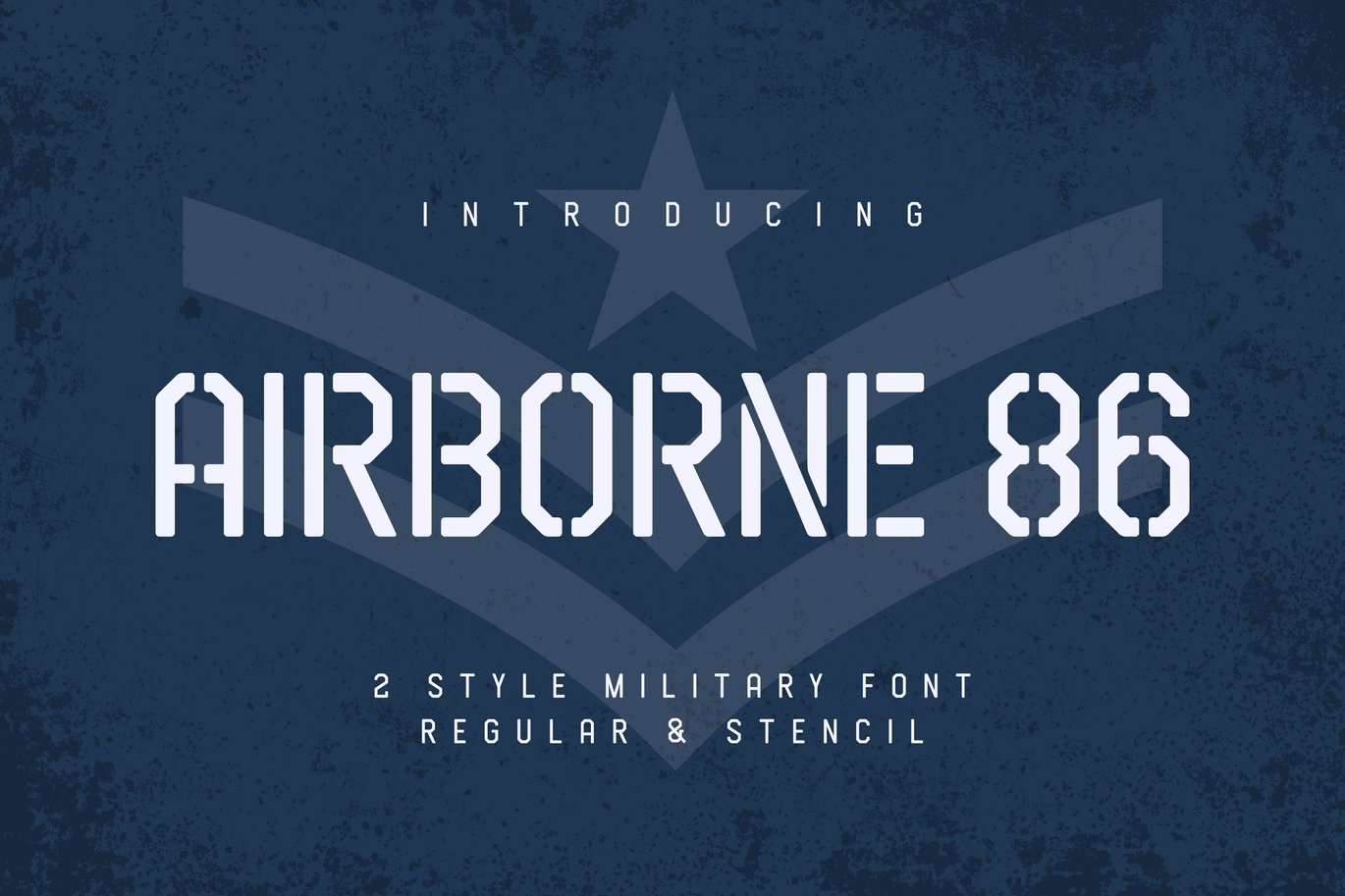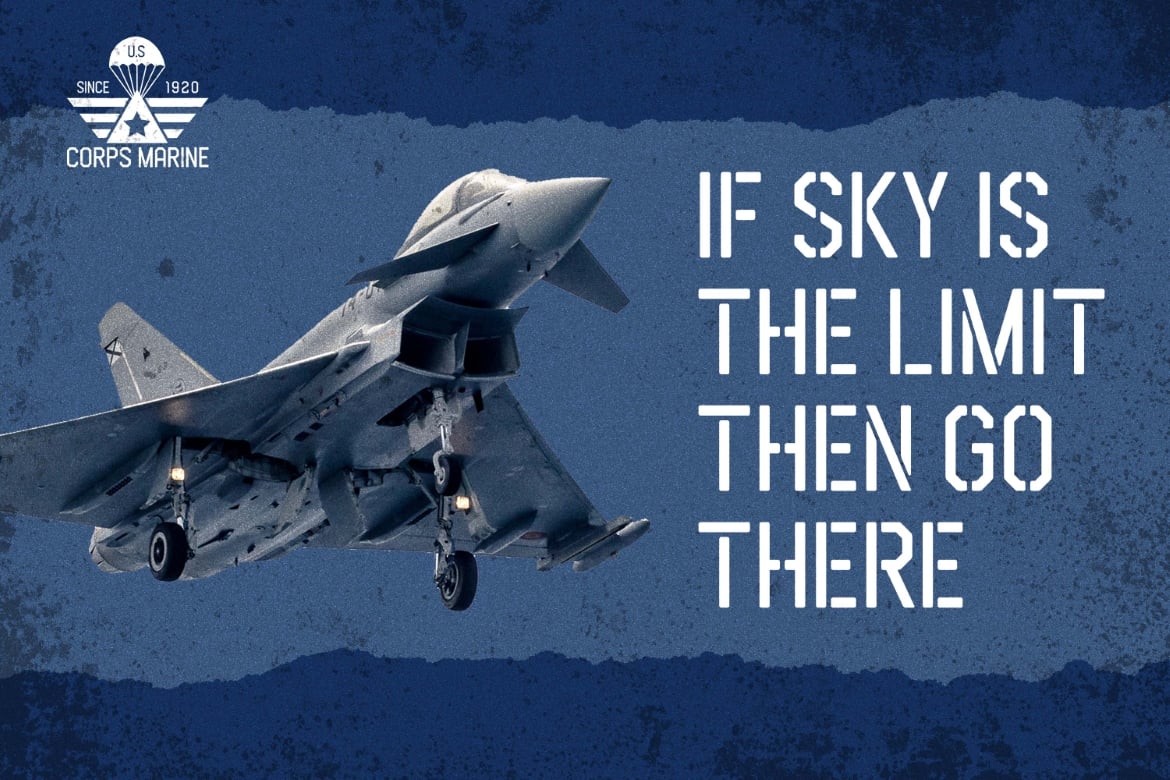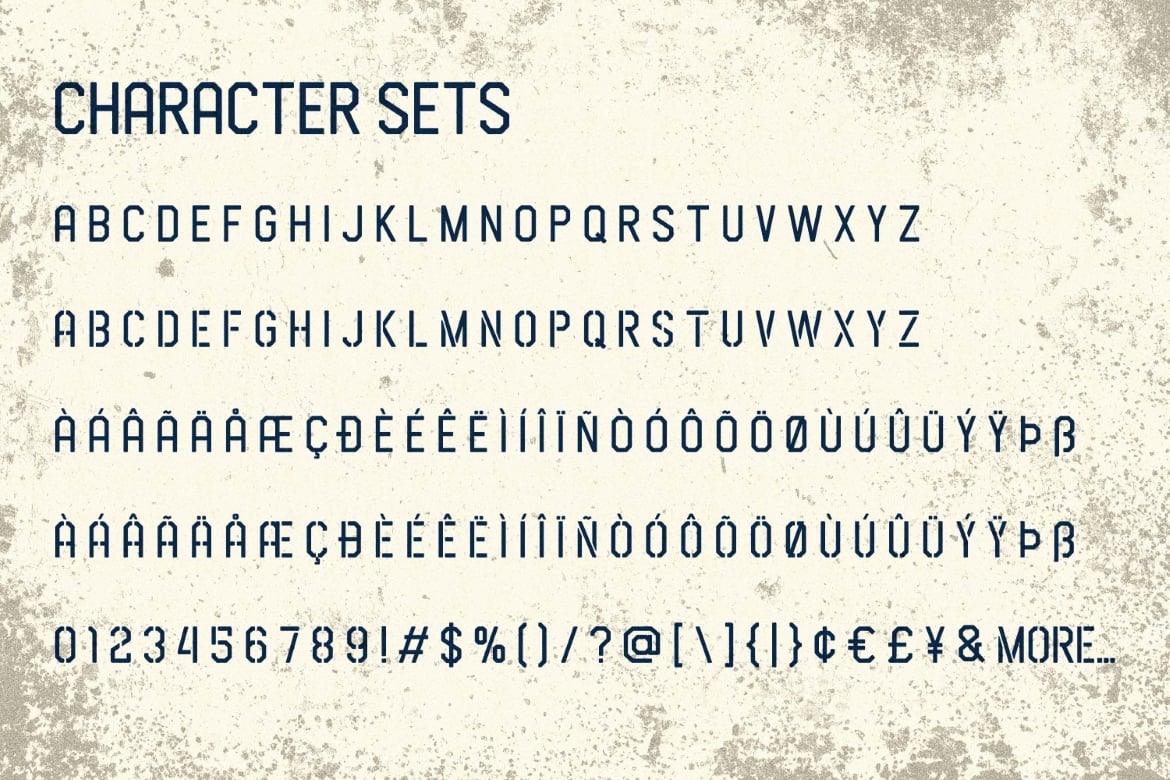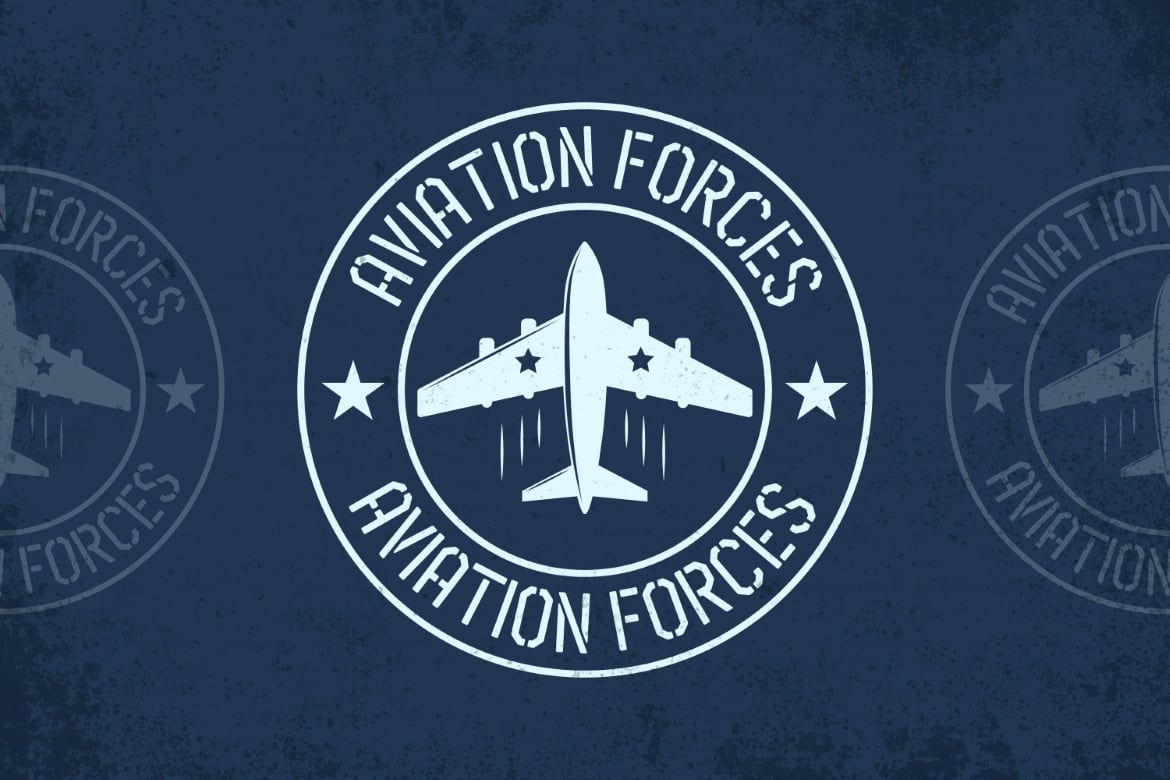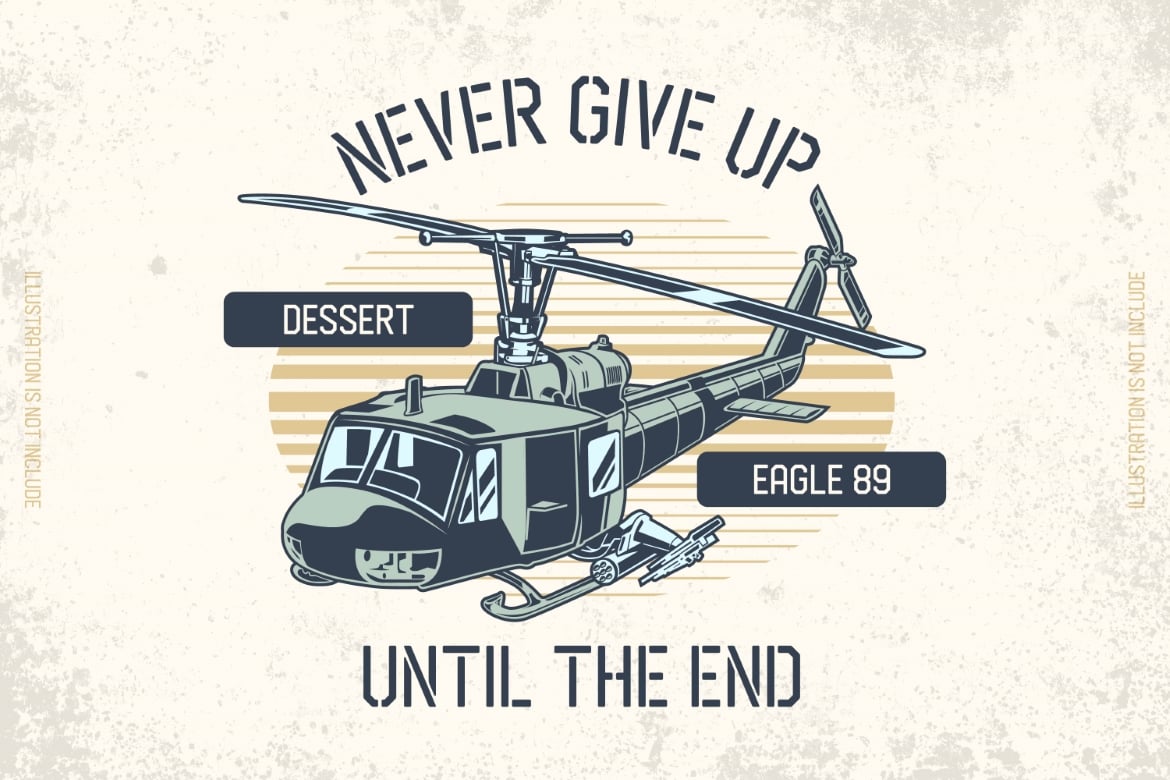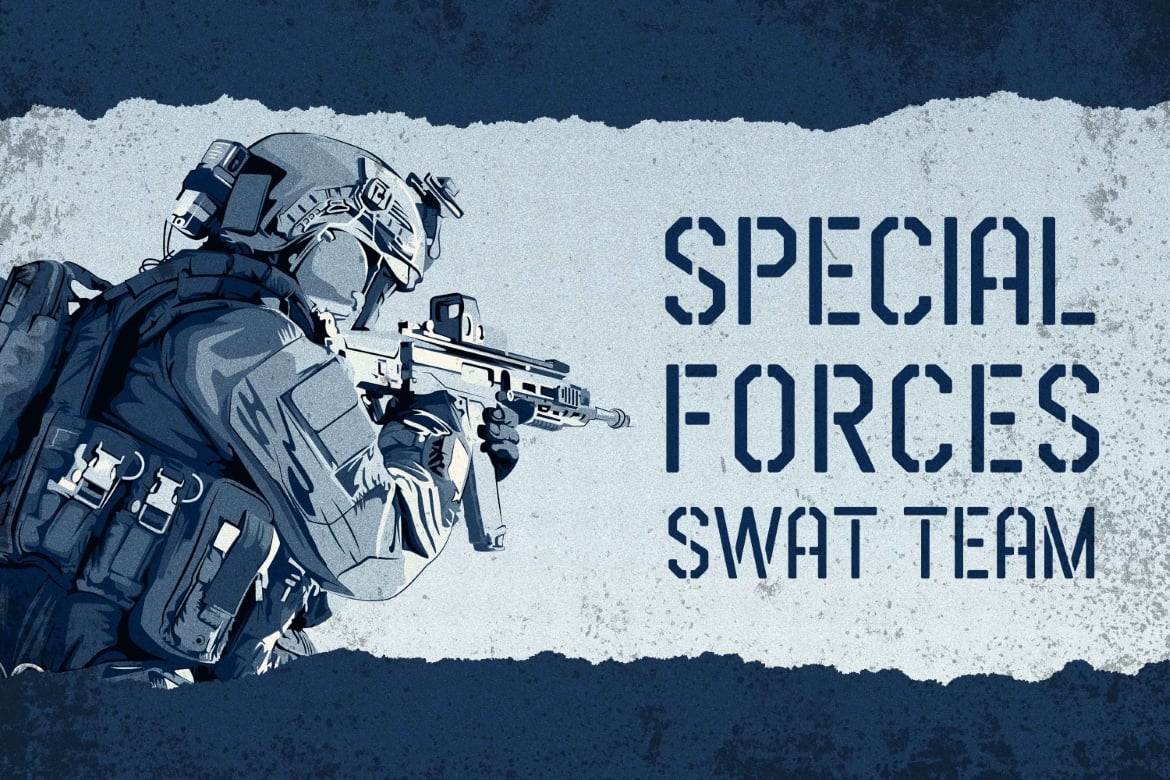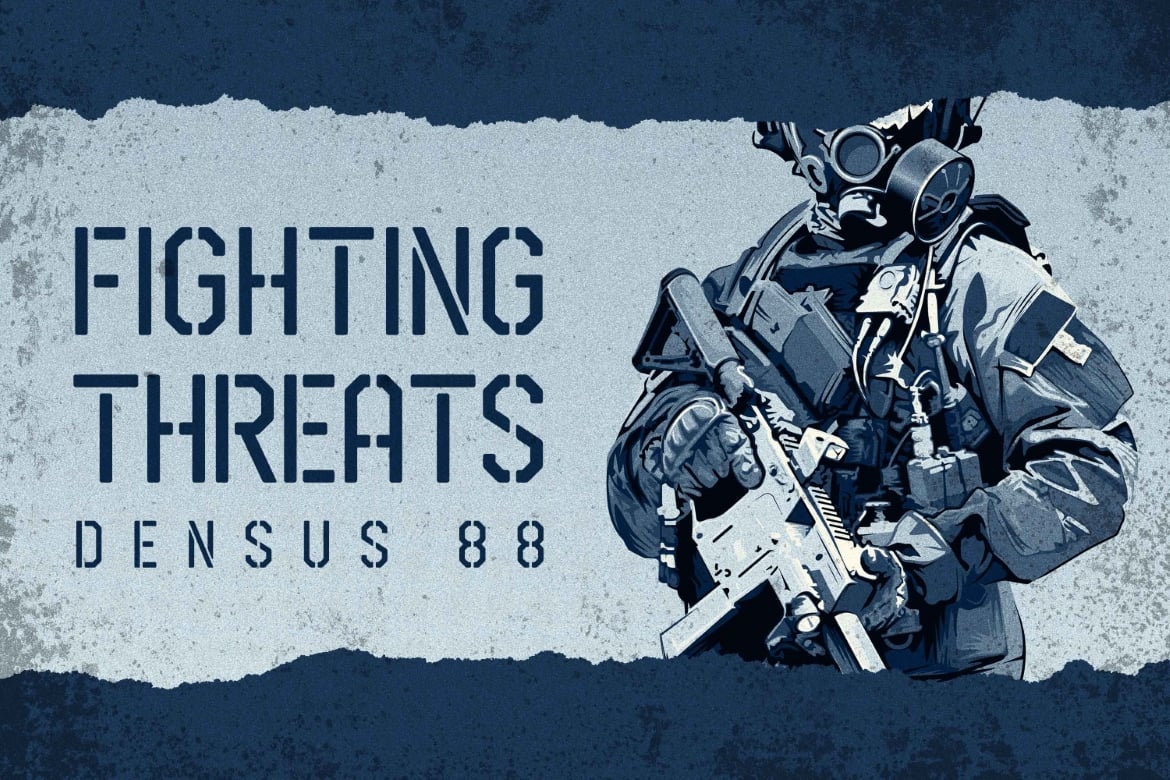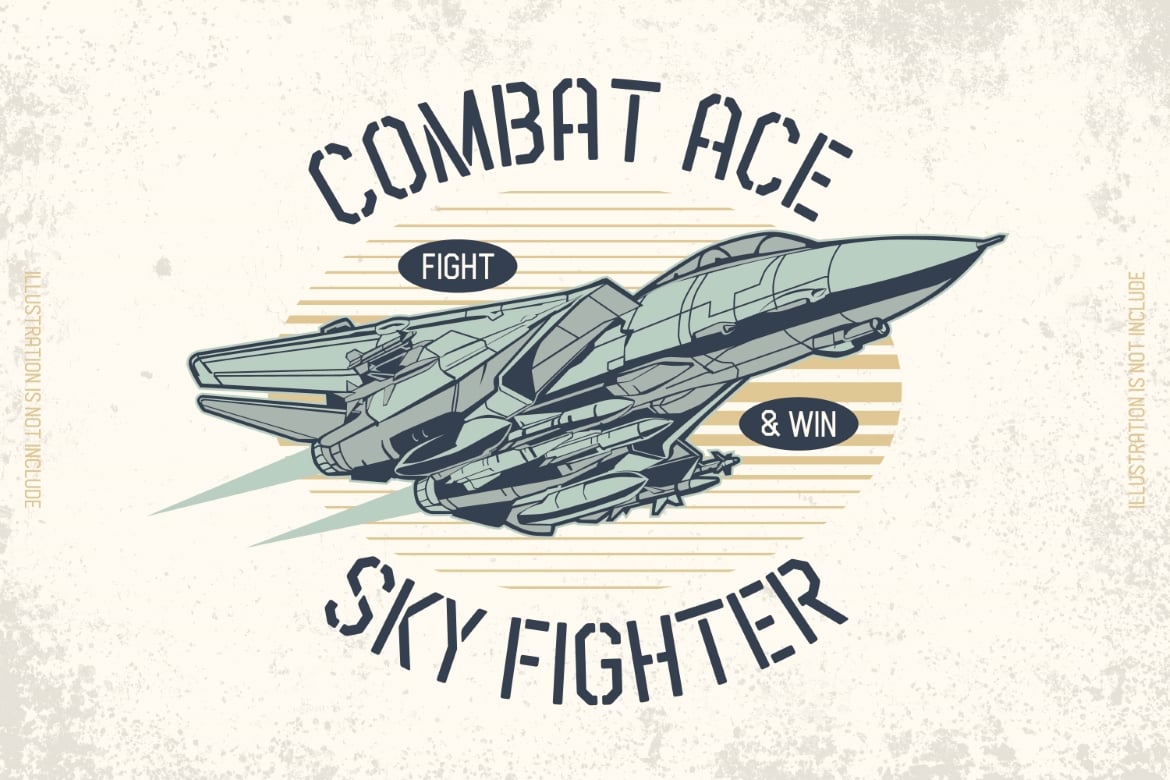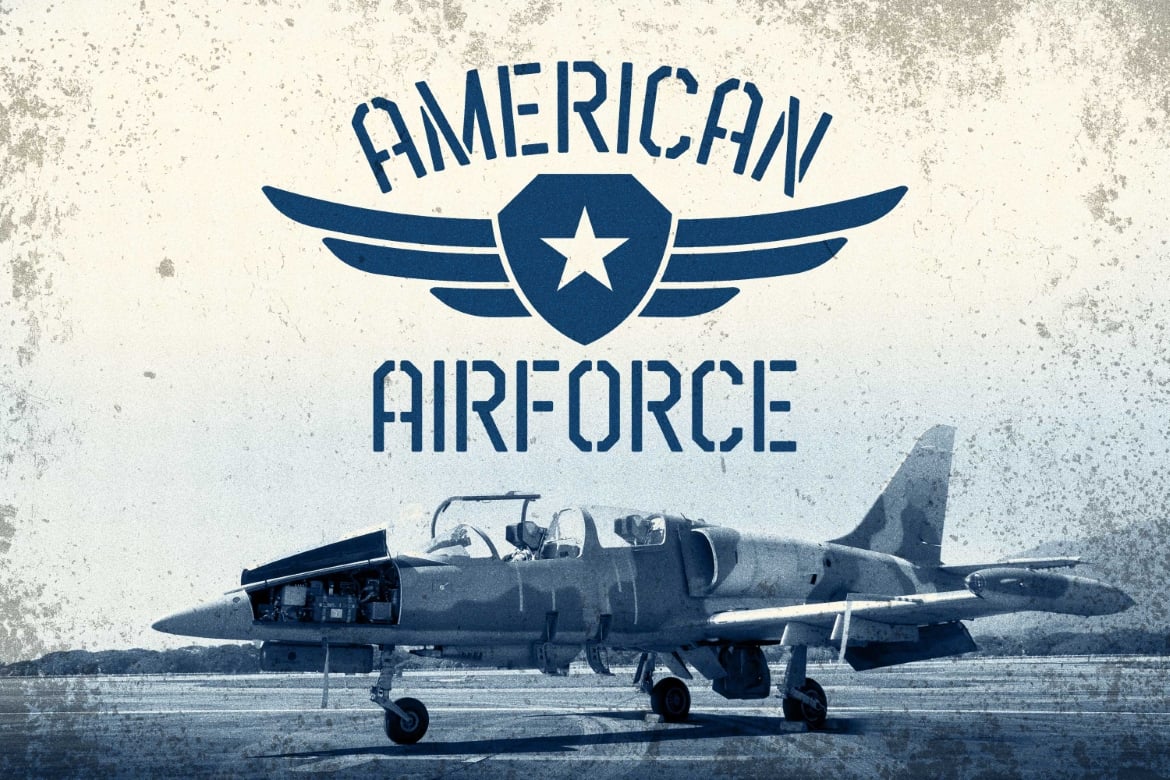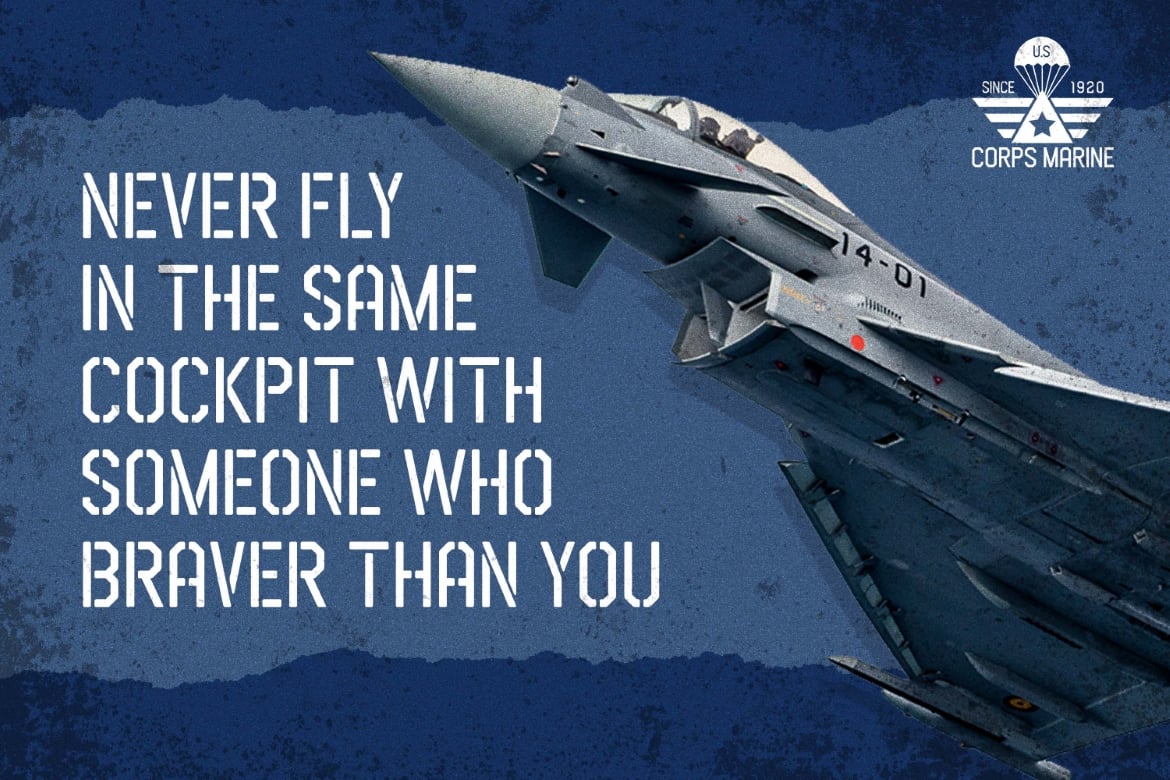
Airborne 86 – Military Font
Airborne 86 is a Sans military style font, first conceptualize was inspired by the classic vintage military stencil design .
I wanted a typeface that could be a solid base for any military inspired project Airborne 86 Fonts can be used for wallpaper, pattern fills, web page background, surface textures. Perfect for making army posters , scrapbooking,invitation cards, label stickers, stationary, gift wrap, packaging, clothes, buttons, pendants, holiday gifts, print on fabrics and so much more
- Multilingual Accent